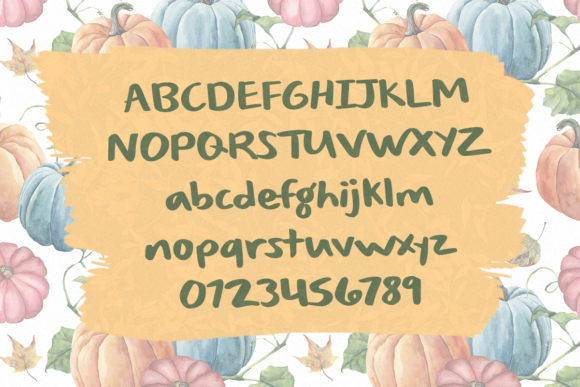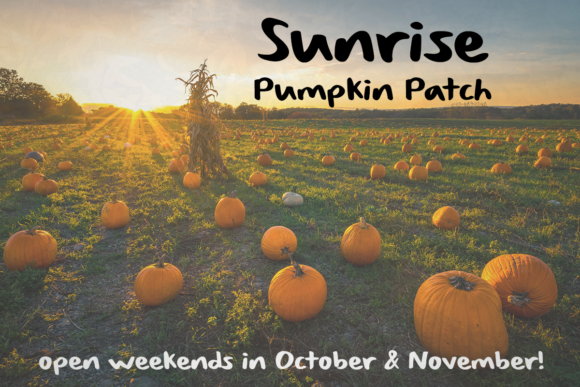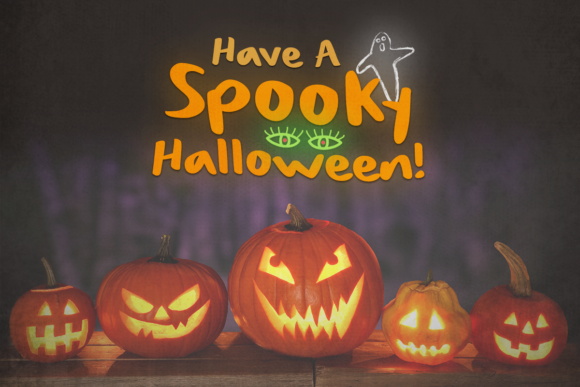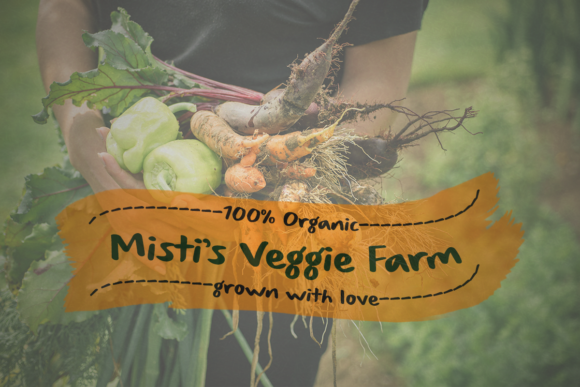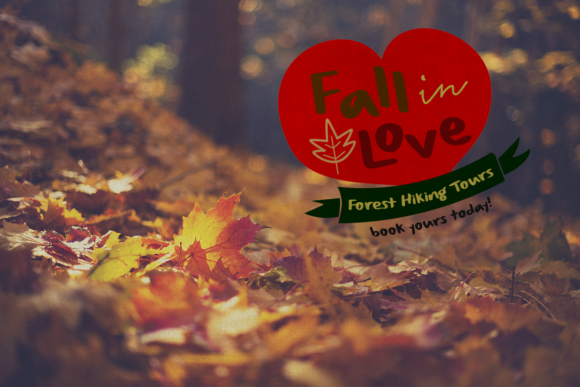
Sizable Quantity Font
About Sizable Quantity Font
Sizable Quantity is an organic handcrafted typeface. It is perfect for adding an authentic marker look and feel to your projects. It looks great on a variety of designs including logos, advertisements, social media graphics, quotes, websites and so much more!